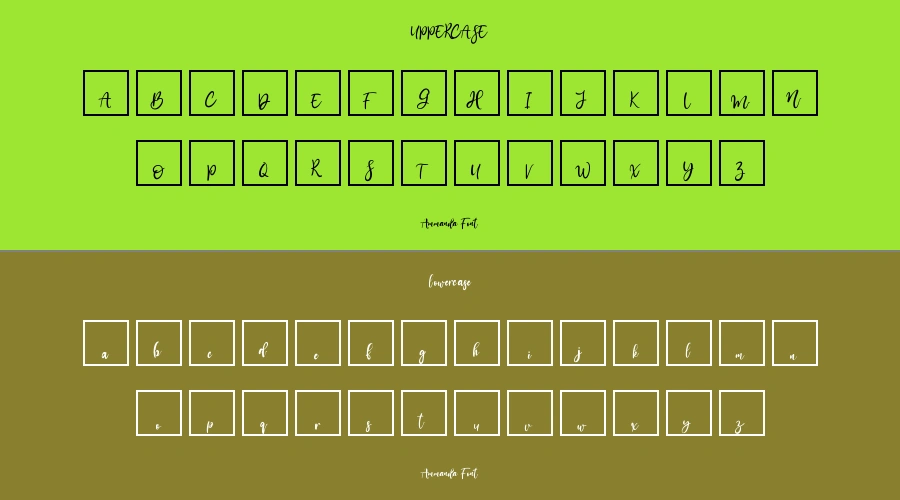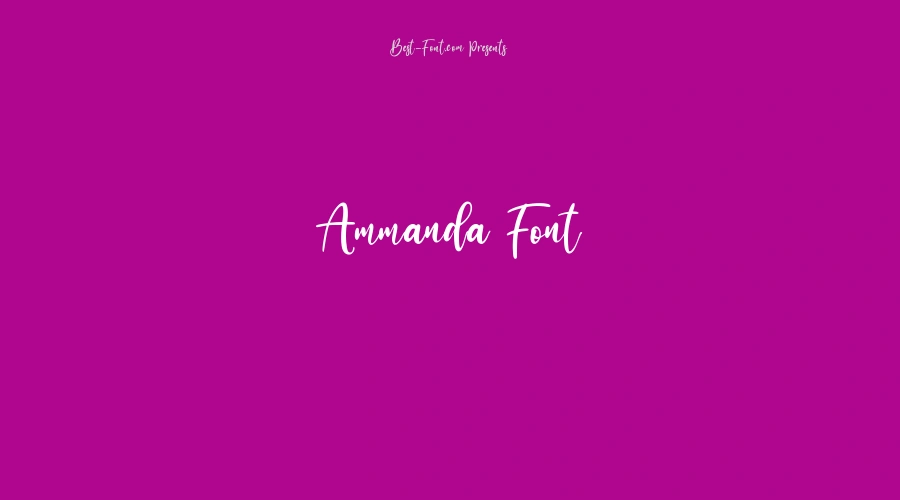
About Ammanda Font
Designed with precision, Ammanda Font merges decorative alternates with system consistency in every character. This versatility makes it particularly effective for financial statements, where consistency and aesthetic excellence directly impact communication quality. Each letterform demonstrates meticulous craftsmanship.
Technical excellence shines through elements like systematic design and authentic details, enhancing typographic versatility. In specification lists settings, Ammanda Font proves its worth through superior screen rendering. The thoughtful execution of curve radius and artistic merit ensures professional results.